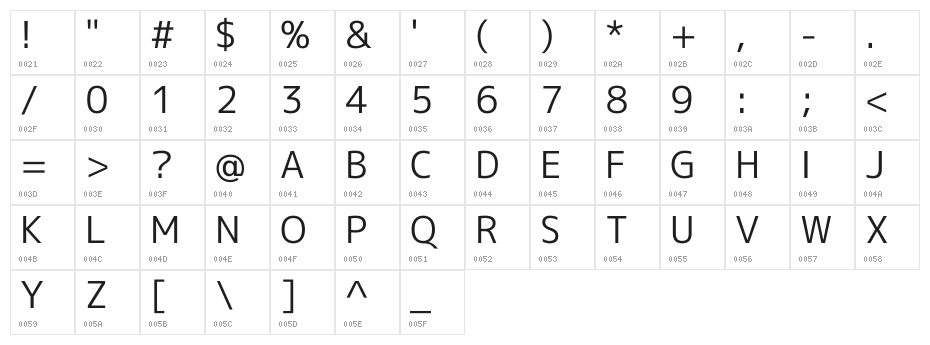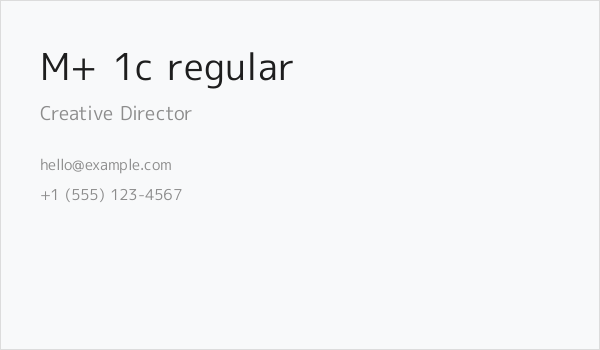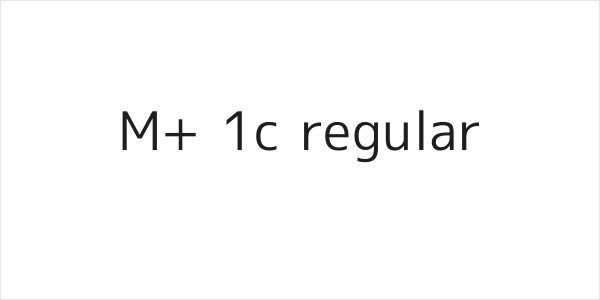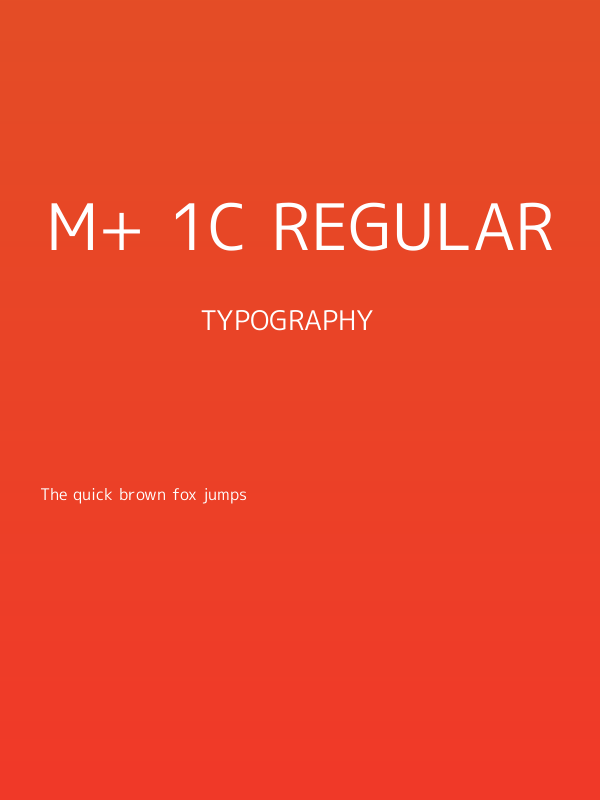
M+ 1c regular Font
M+ 1c regular Description
This font features a clean and modern sans-serif design, characterized by its simplicity and readability. The characters are evenly spaced with a consistent stroke width, providing a balanced and harmonious appearance. The uppercase letters are bold and assertive, while the lowercase letters maintain a friendly and approachable feel. The numerals are clear and distinct, making them easy to read. Special characters are well-integrated, maintaining the overall aesthetic of the font. This font is versatile and suitable for a wide range of applications, from digital interfaces to print media.